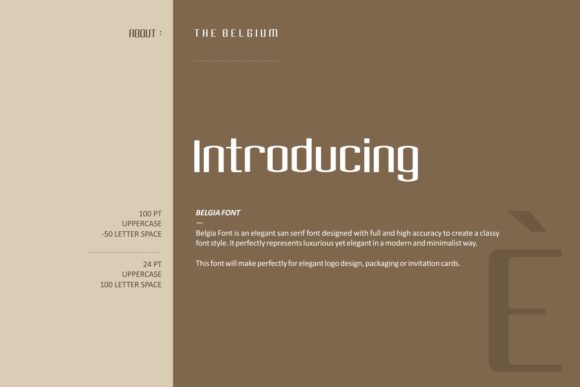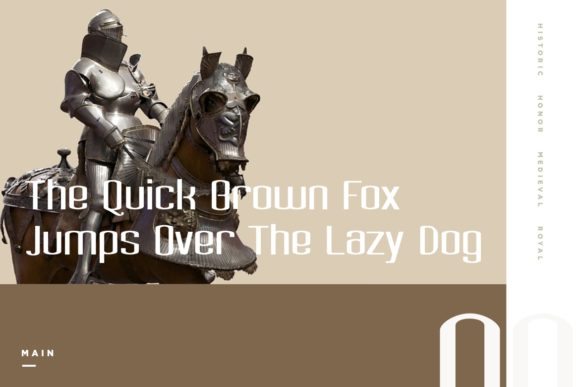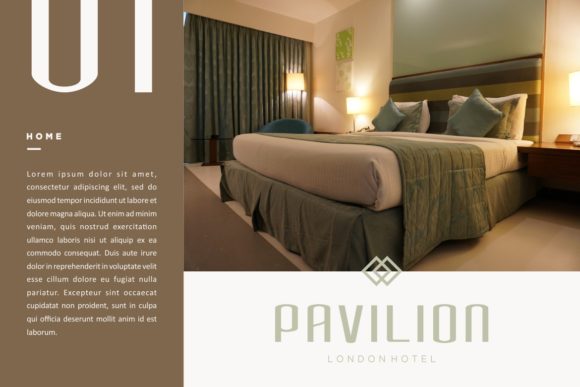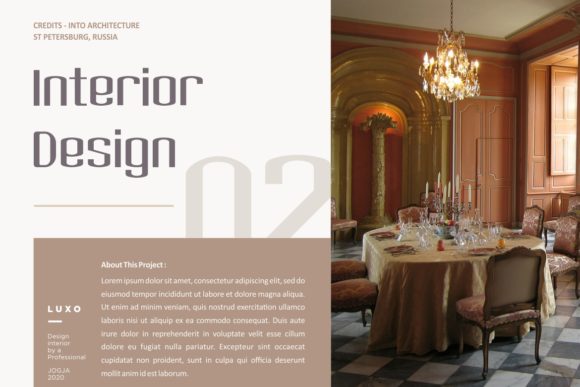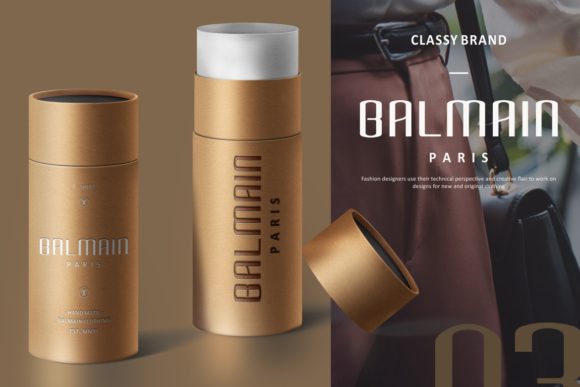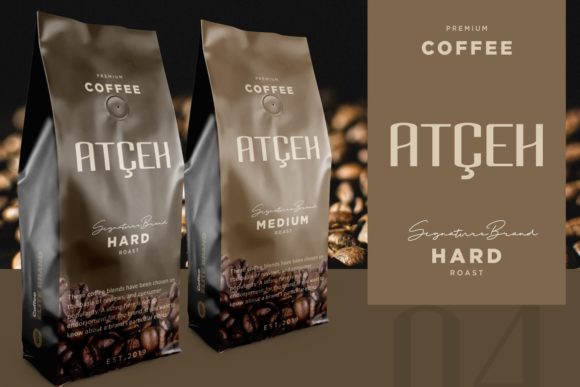
Unleashing Elegance: The Beauty of Belgia Font
Have you ever stared at a beautifully designed logo or a stylish website and wondered what font made it all come together? That’s exactly what happened to me when I saw a stunning design project recently. I was captivated by the elegant sans serif font that added a touch of sophistication to the entire piece. After some digging, I discovered the secret behind that stunning design: Belgia Font.
This classy font is more than just a pretty face – it’s a valuable tool for designers looking to add a touch of elegance to their projects. Whether you’re creating a luxury brand identity or a high-end website, Belgia Font is sure to make a lasting impression. Its clean lines and refined style make it the perfect choice for designers who want to convey sophistication and refinement.
Belgia Font Key Features
- Font Family: A custom sans-serif font designed for modern and sleek designs.
- Character Set: Supports a wide range of languages, including Latin, Cyrillic, and Greek alphabets, making it suitable for global designs.
- Unique Characteristics: Features a distinctive x-height and subtle rounded edges, giving it a friendly and approachable feel.
- Weight and Style: Available in 7 weights (Light, Thin, Regular, Medium, Bold, Heavy, Black) and 3 styles (Regular, Italic, Bold Italic), providing ample flexibility for various design applications.
Designer Review: Belgia Font
As a designer, I was excited to try out the Belgia Font, and I must say it has some great qualities. ✨ Here are some things that work well:
- Unique character set: Belgia Font has a distinctive character set that is reminiscent of classic fonts from the 19th century. This makes it perfect for projects that require a vintage or retro feel.
- High-quality strokes: The strokes in this font are smooth and precise, giving it a professional look.
- Flexible use: Belgia Font can be used for both body text and headings, making it a versatile choice for designers.
However, as with any font, there are some limitations. ⚠️ Here are a few things to keep in mind:
- Not ideal for small text: The unique character set of Belgia Font can make it difficult to read in small sizes. It’s best used for larger text sizes.
- Limited language support: Belgia Font may not be suitable for projects that require extensive language support.
Overall, I think Belgia Font is a solid choice for designers who want to add a touch of vintage flair to their projects. It’s a great option for those who need a high-quality font with a unique character set. With some careful consideration of its limitations, Belgia Font can be a valuable addition to any designer’s toolkit.
Use the Belgia font for titles, headings, and emphasis to add a touch of elegance to your designs. Experiment with different font sizes and colors to create a unique look. You can also pair the Belgia font with other fonts to create a harmonious typography.
The Belgia font is ideal for:
- Editorial and publishing designs